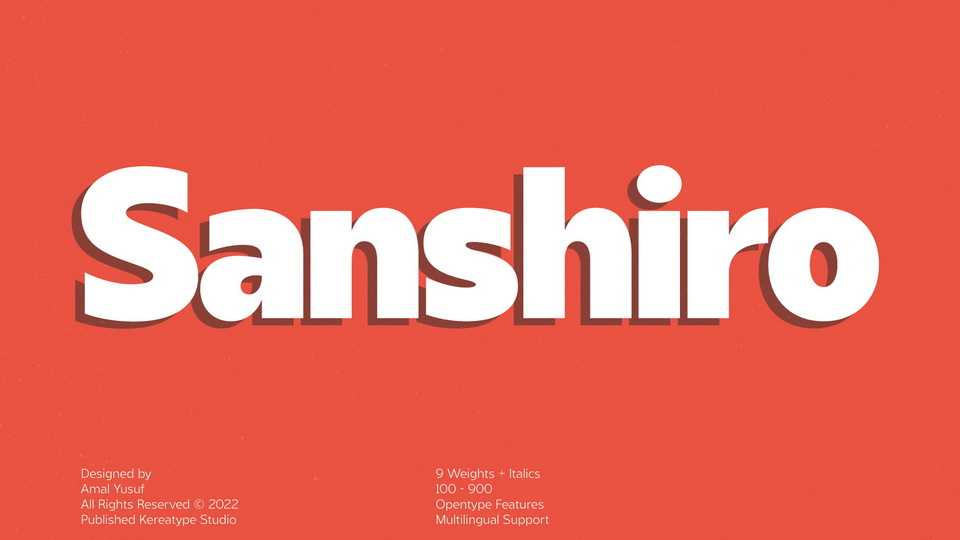
Download Sanshiro font, a geometric sans serif typeface. Sanshiro font can improve and be used for any display media to support your visual design.
Designer: Kereatype Studio